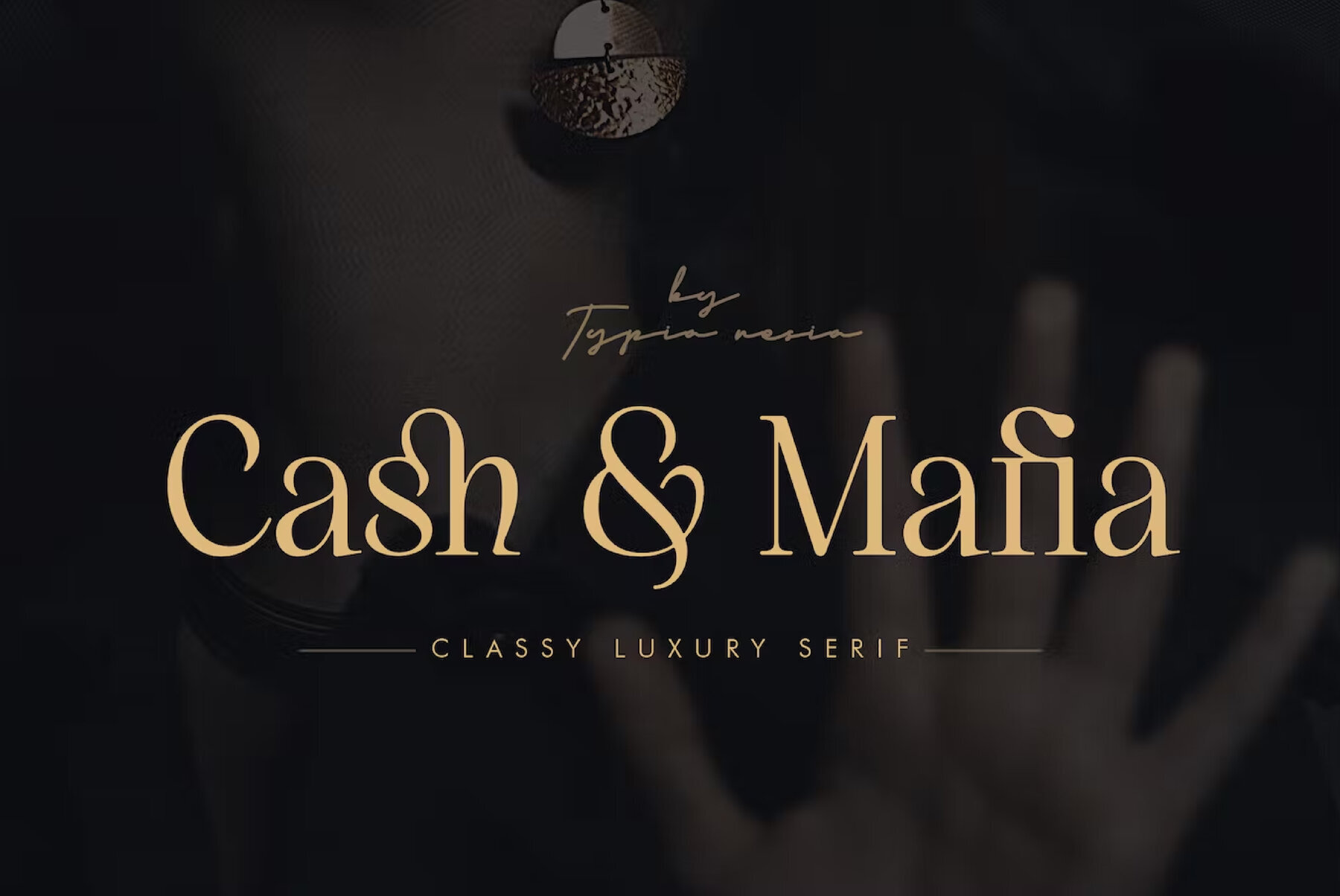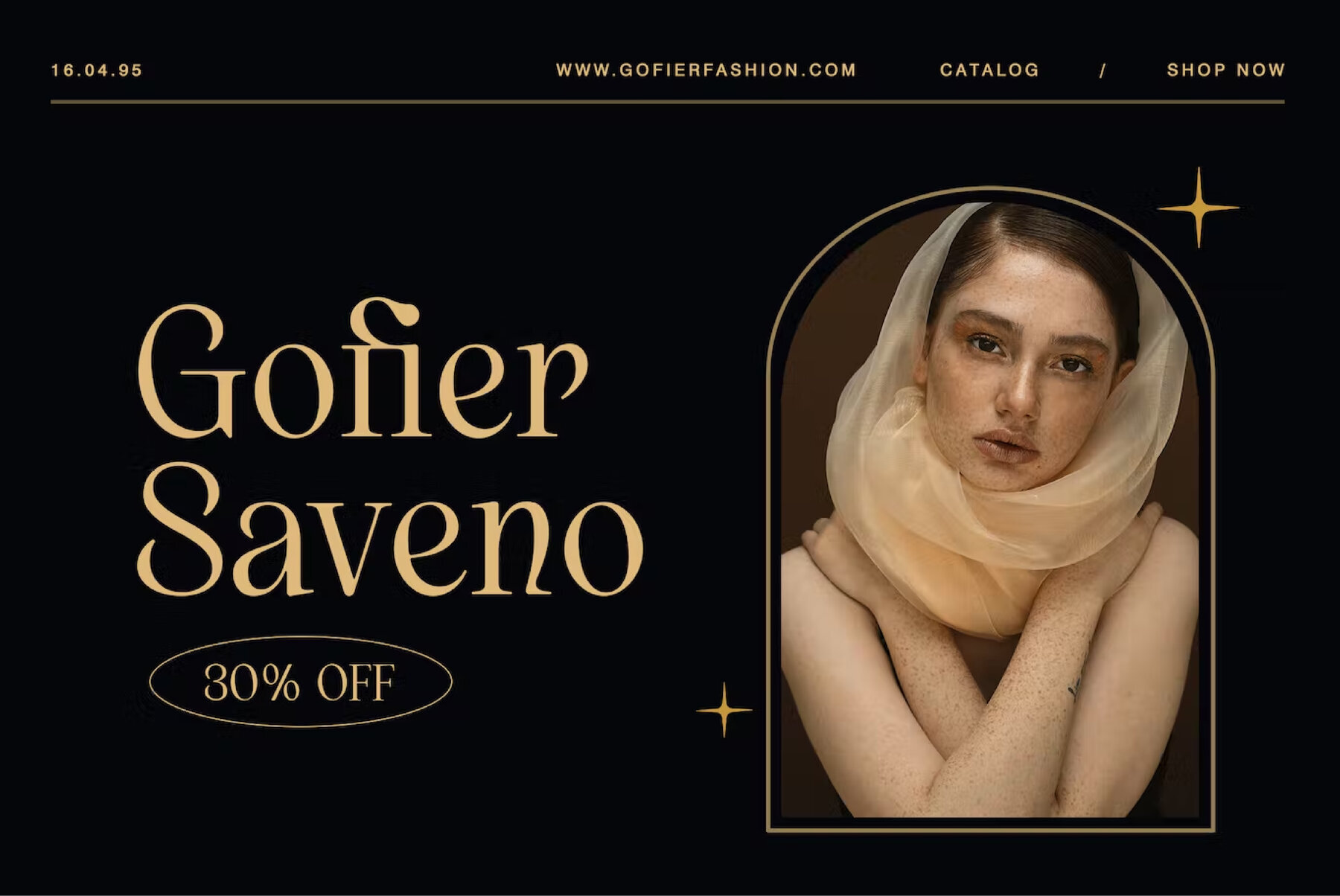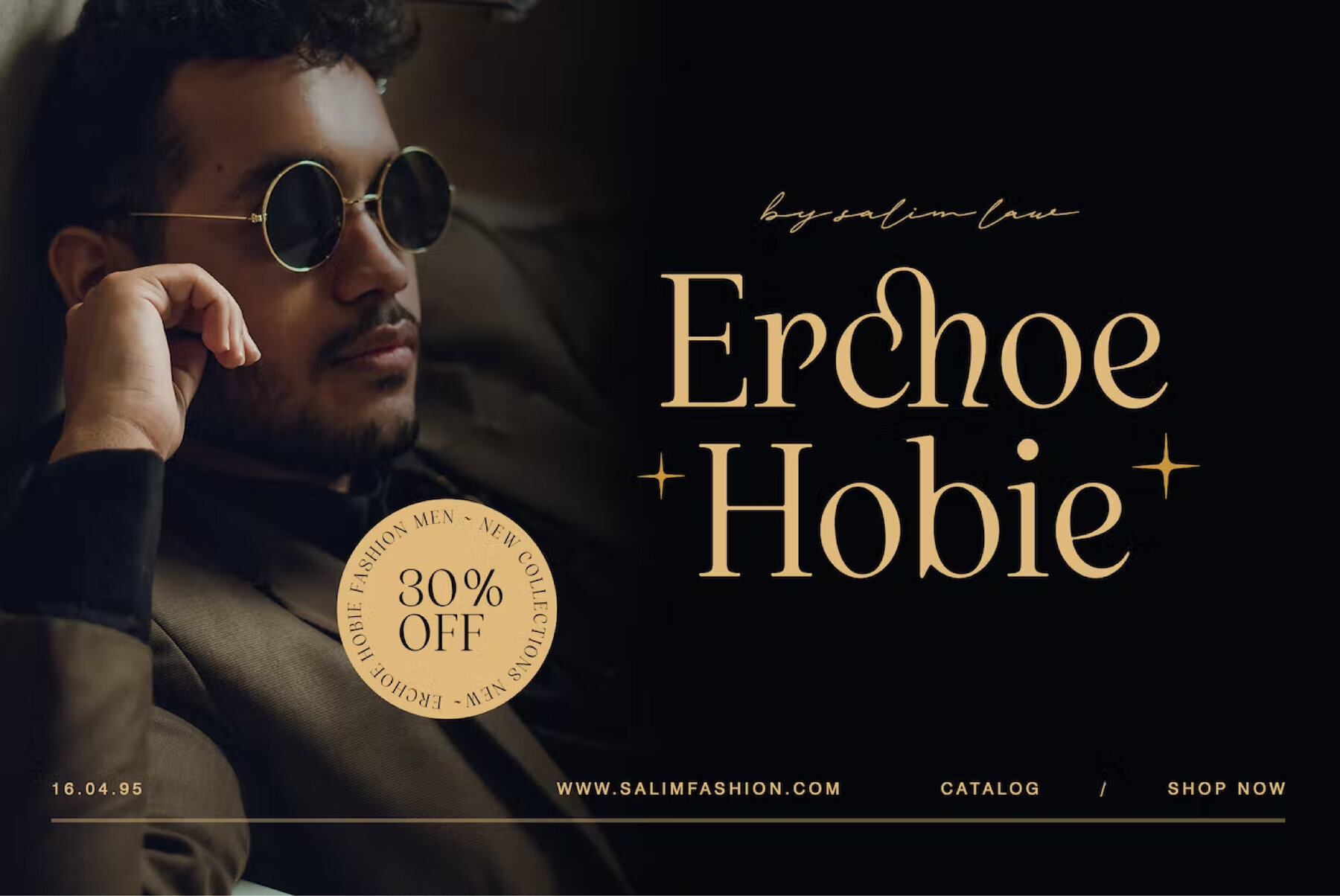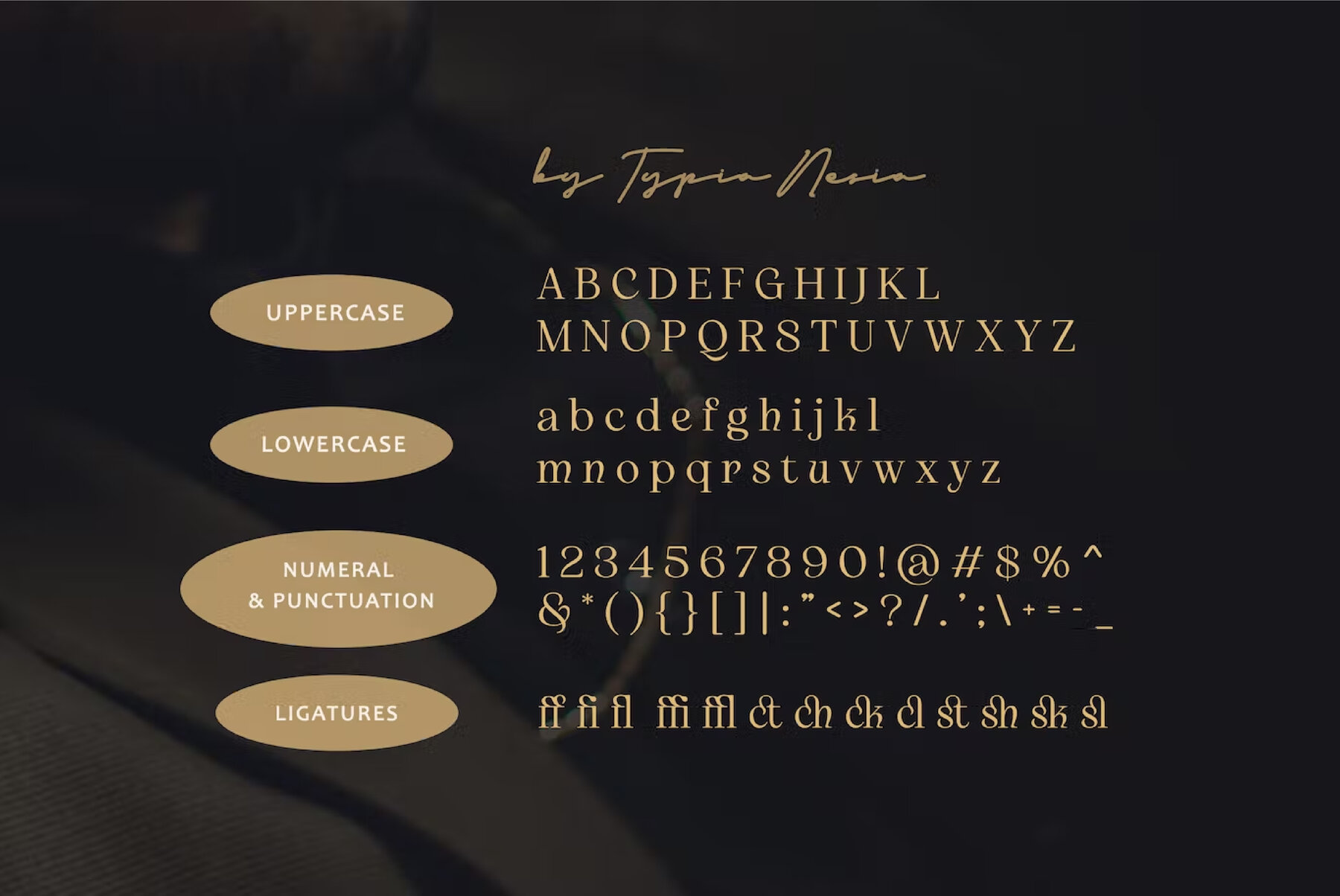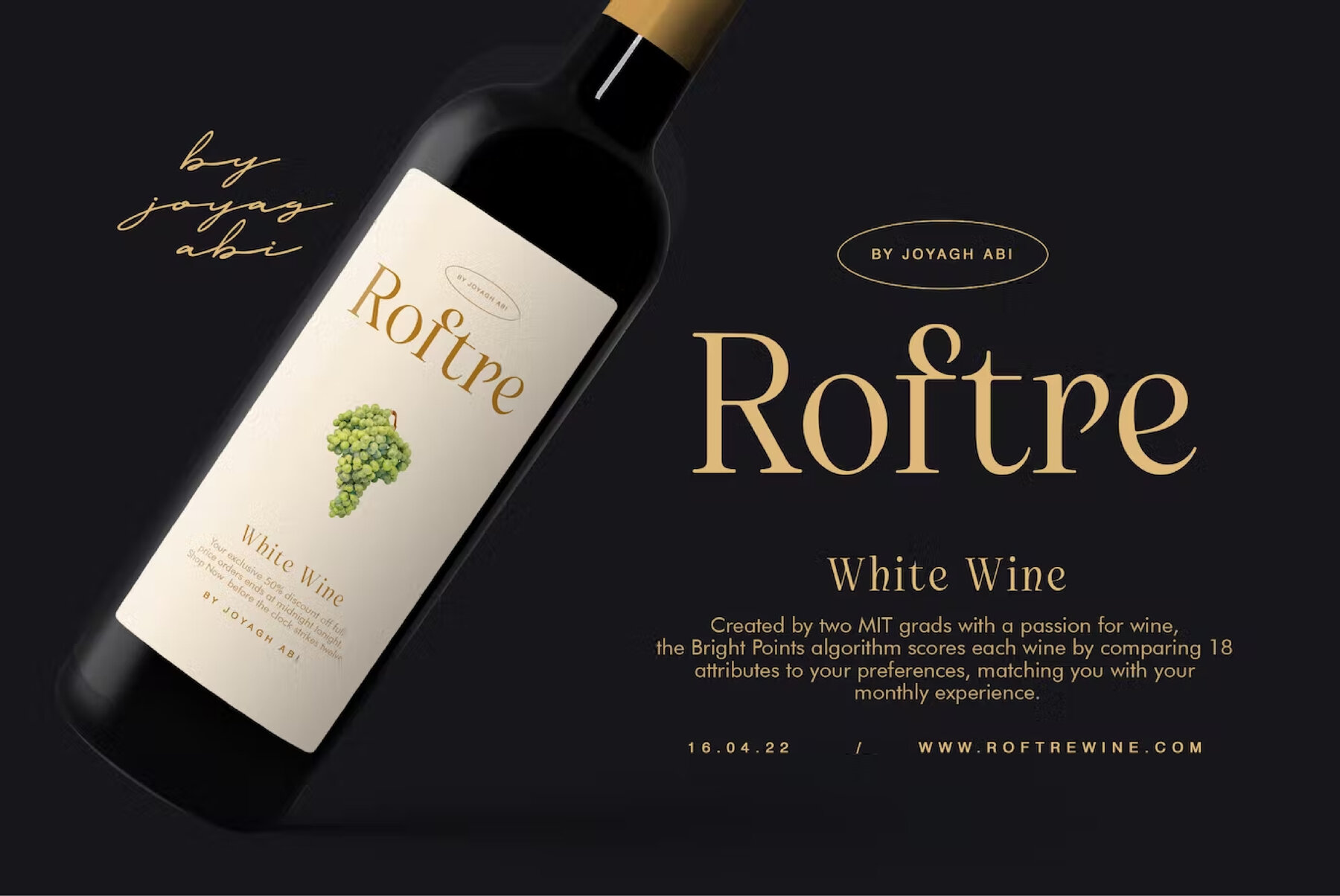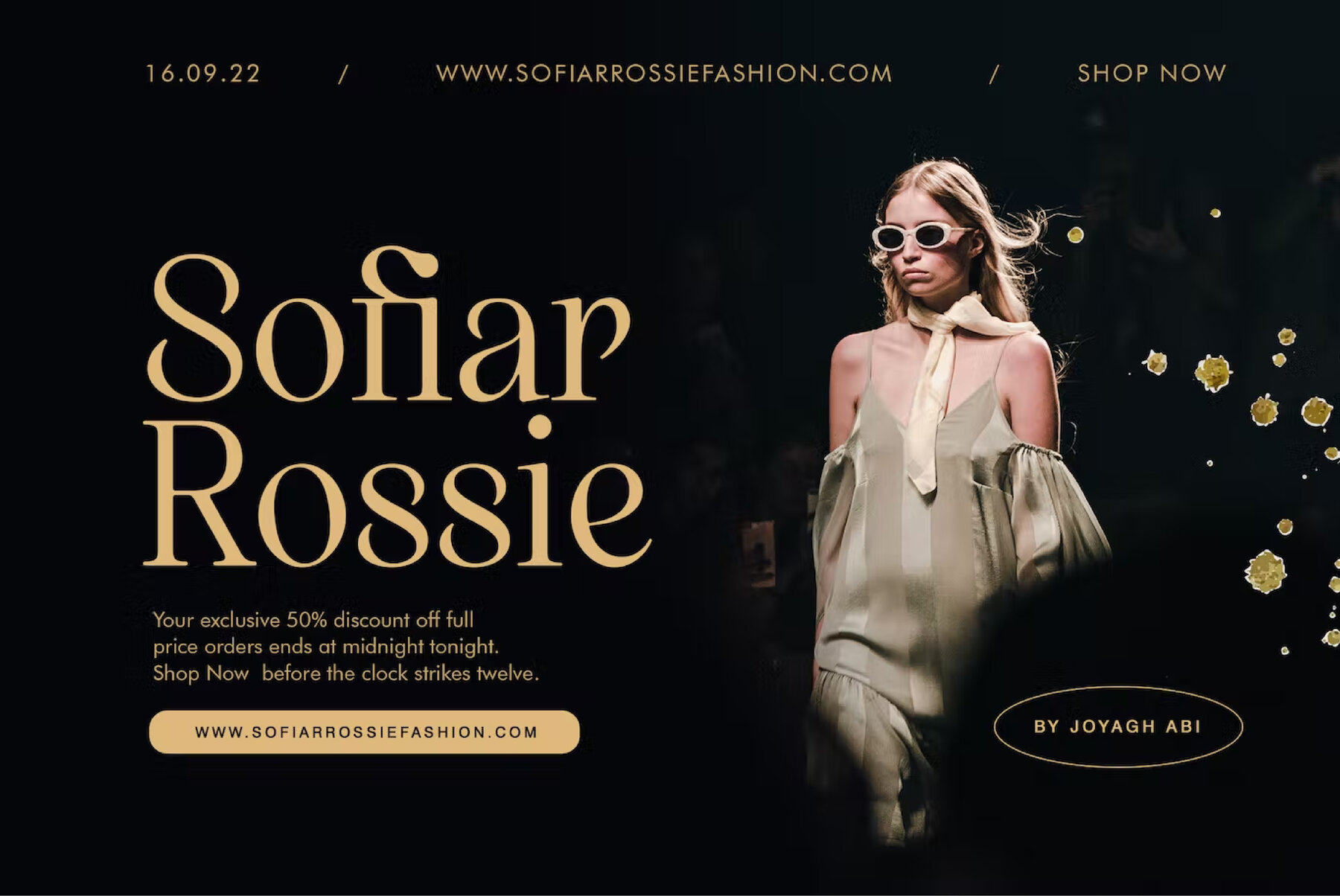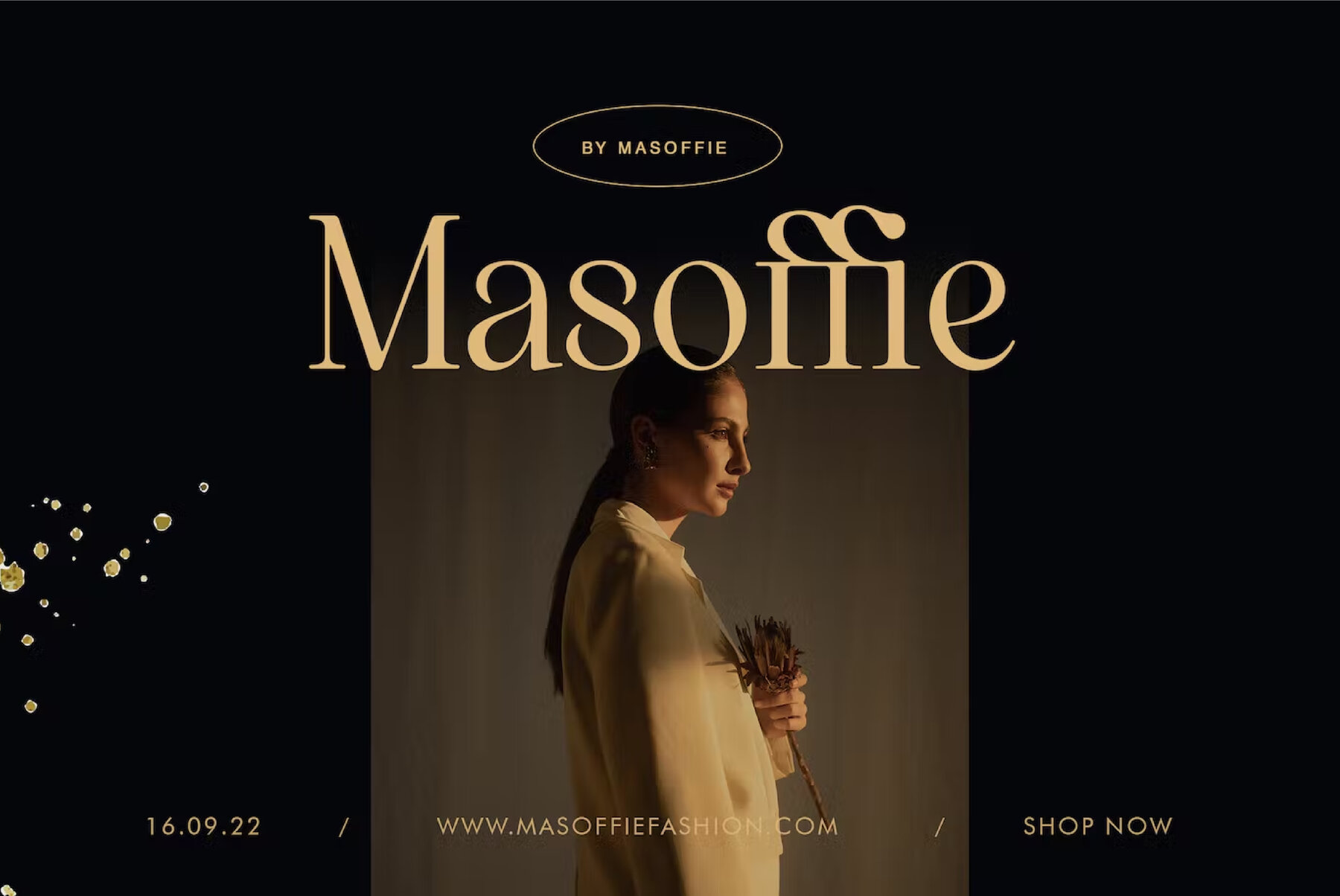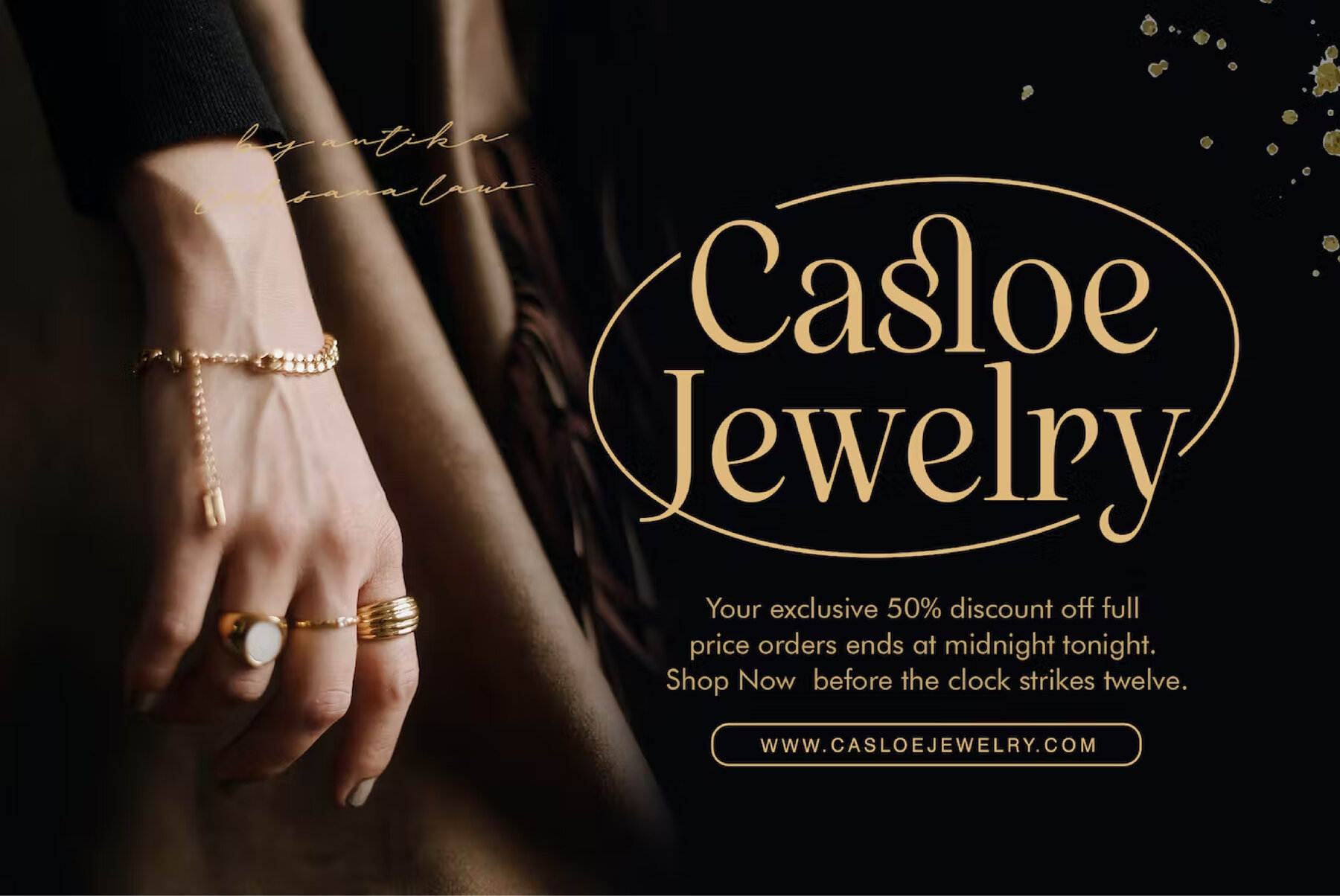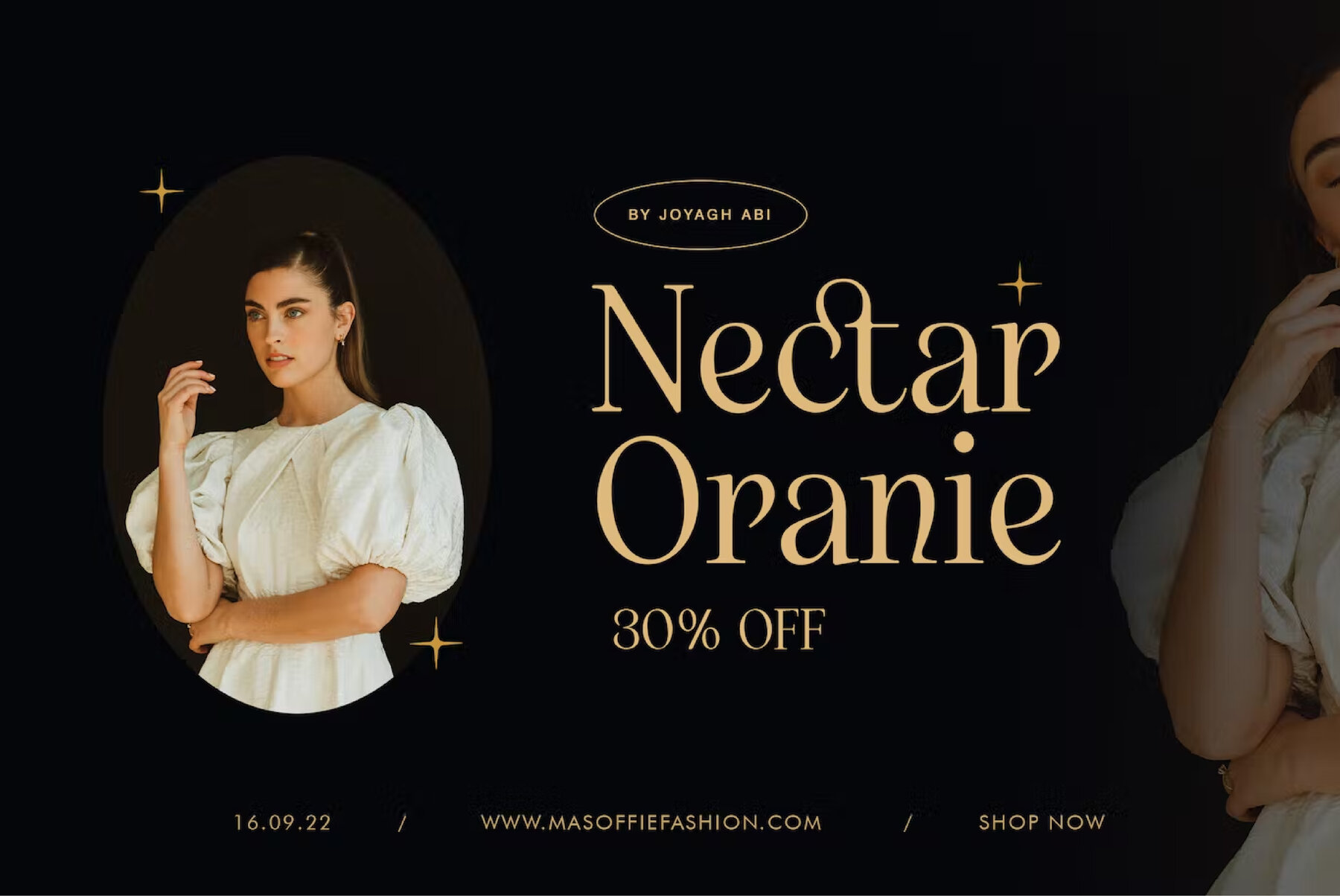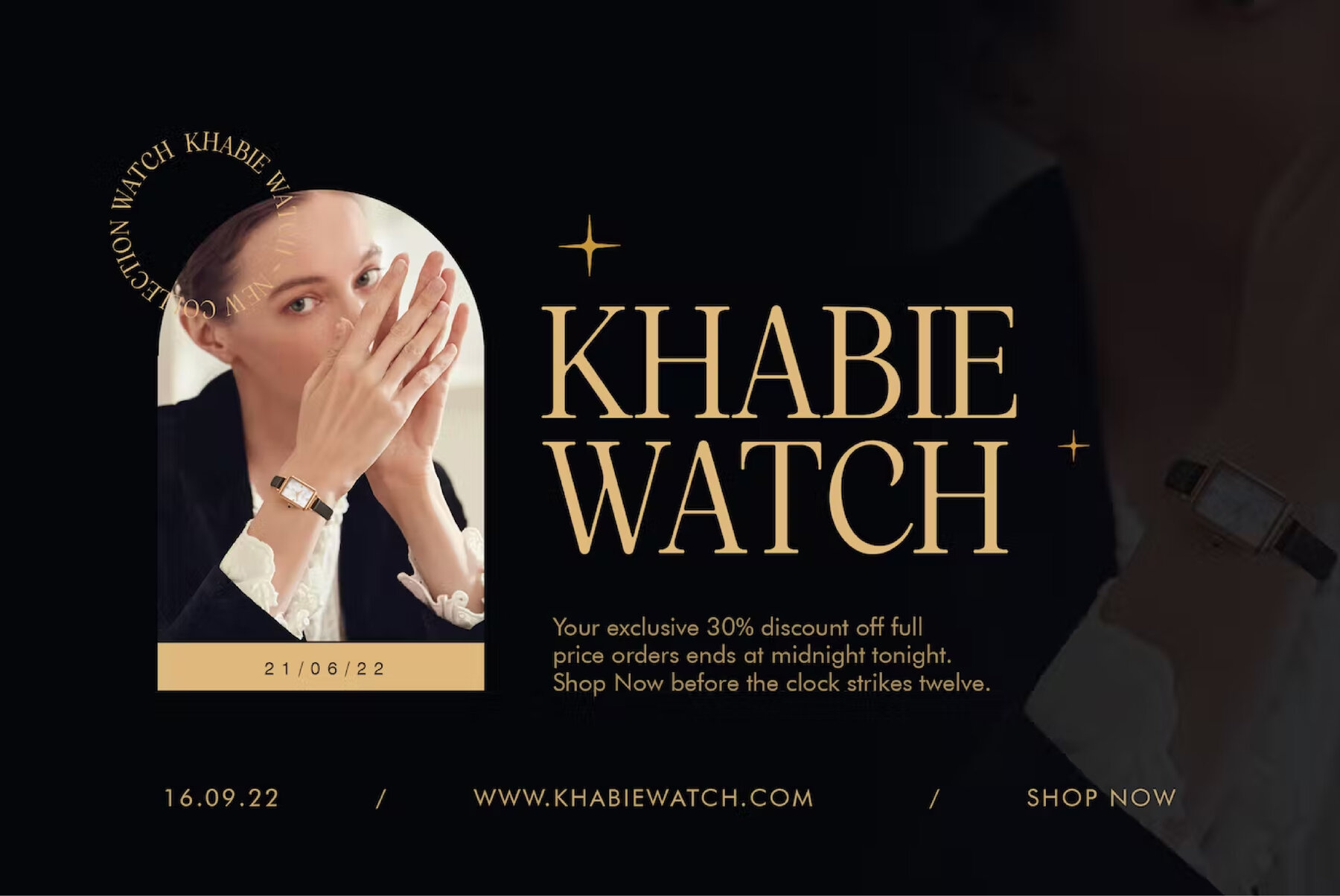
Cash and Mafia Font
This warm and creative typeface is the ideal choice for luxury logos and branding, classy editorial design, women's magazines, cosmetic brands, fashion promotions, art gallery branding, museums, historical and architectural projects, boutique branding, stationery design, blog design, modern advertising, card invitations, art quotes, home decor, book and cover titles, special events, and so much more. With its versatile and elegant design, Cash and Mafia Serif is sure to elevate any project and leave a lasting impression. So why wait? Try it out today and see the difference for yourself!